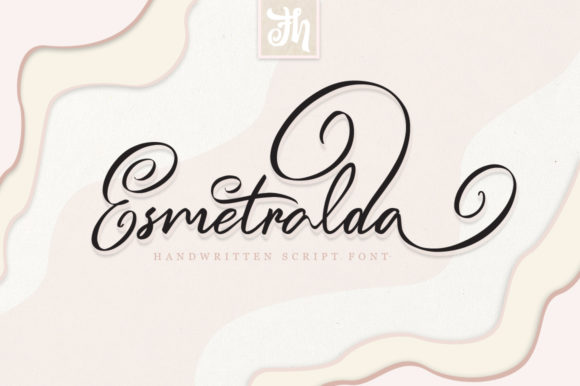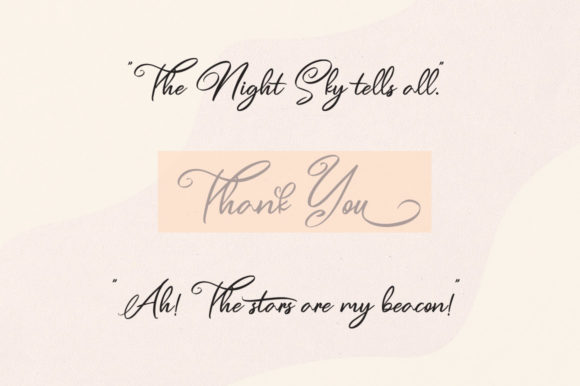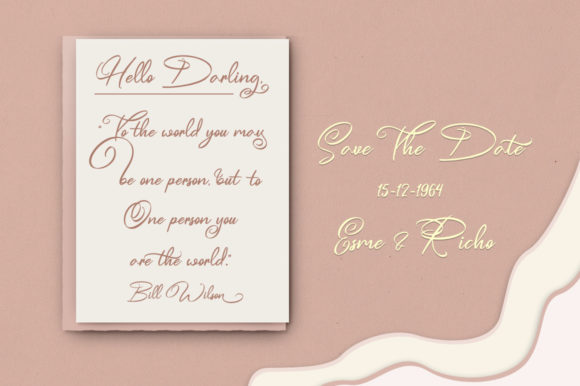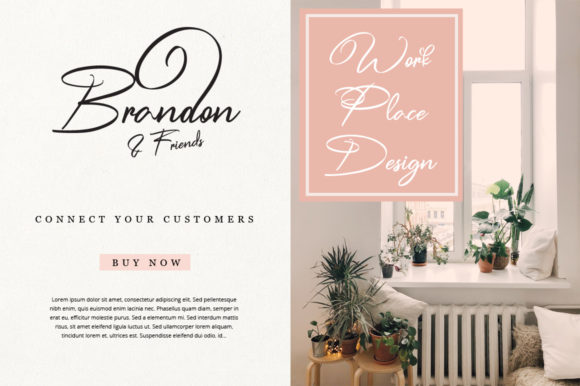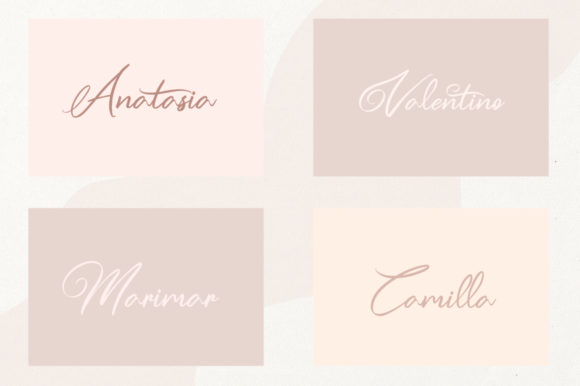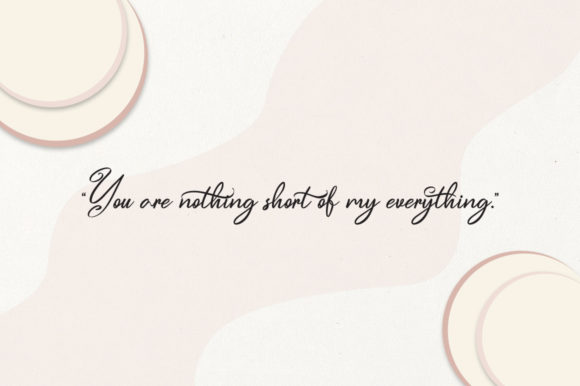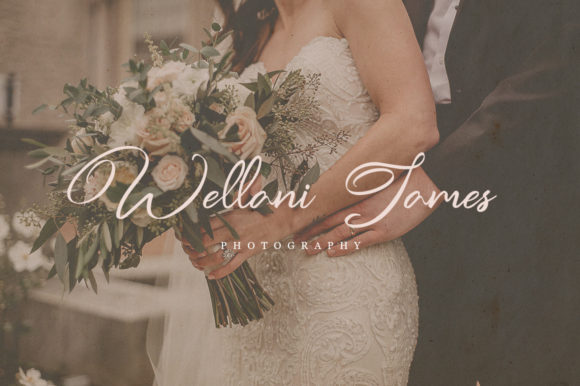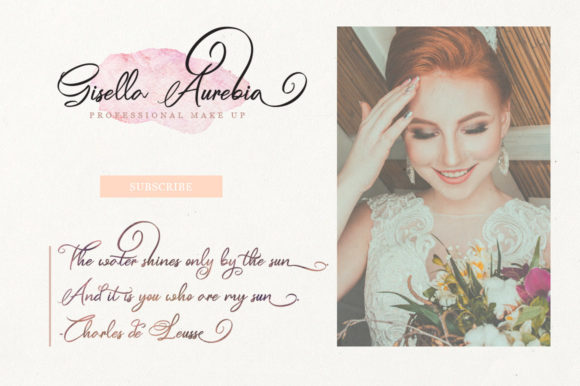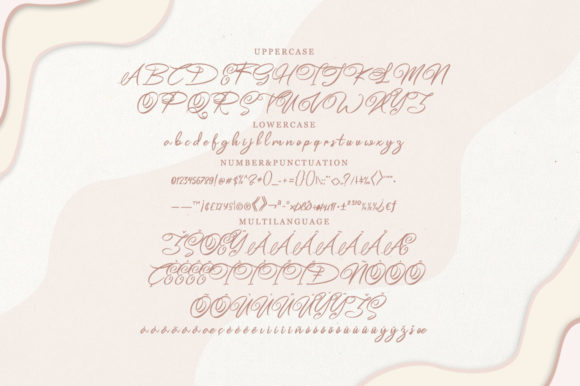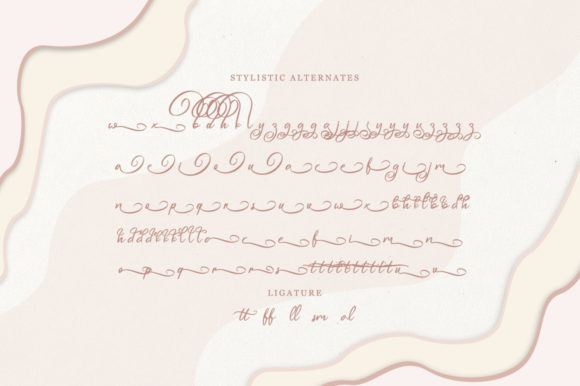
Esmetralda Font
About Esmetralda Font
Esmetralda is a strikingly romantic and lovely handwritten font with an incredible feel. Fall in love with its bold swashes.